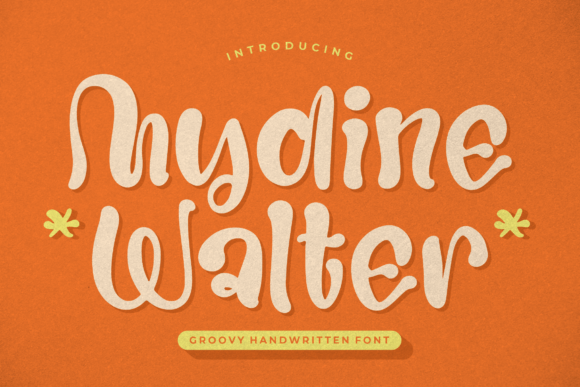
Behold, Mydine Walter Font, the ultimate script font that effortlessly weaves charm and sophistication into your creative endeavors. Crafted with intricate strokes and elegant curves, this font exudes a captivating allure that will leave an indelible mark on your audience.
Immerse yourself in the world of Mydine Walter and discover a font that captures the essence of artistic flair and timeless beauty. Its graceful lines flow harmoniously, creating a visual masterpiece that elevates your designs to new heights.
With Mydine Walter, your words take on a life of their own, dancing across the page with a rhythm and grace that will mesmerize your readers. Whether you're crafting a heartfelt message, designing a captivating logo, or creating stunning social media graphics, this font will elevate your projects with its refined aesthetics.
Step into the world of Mydine Walter and unleash your creativity. Let your imagination soar as you explore the endless possibilities this font offers. From enchanting wedding invitations to eye-catching product branding, Mydine Walter seamlessly adapts to your vision, adding a touch of elegance and charm to every project.
Don't settle for ordinary fonts that blend into the background. Choose Mydine Walter and embark on a creative journey that will captivate your audience and leave a lasting impression. Let your designs shine with the brilliance and sophistication that only Mydine Walter can offer.